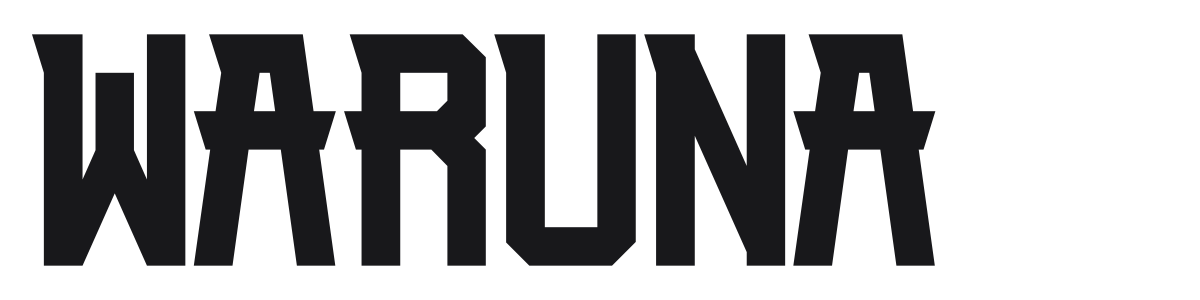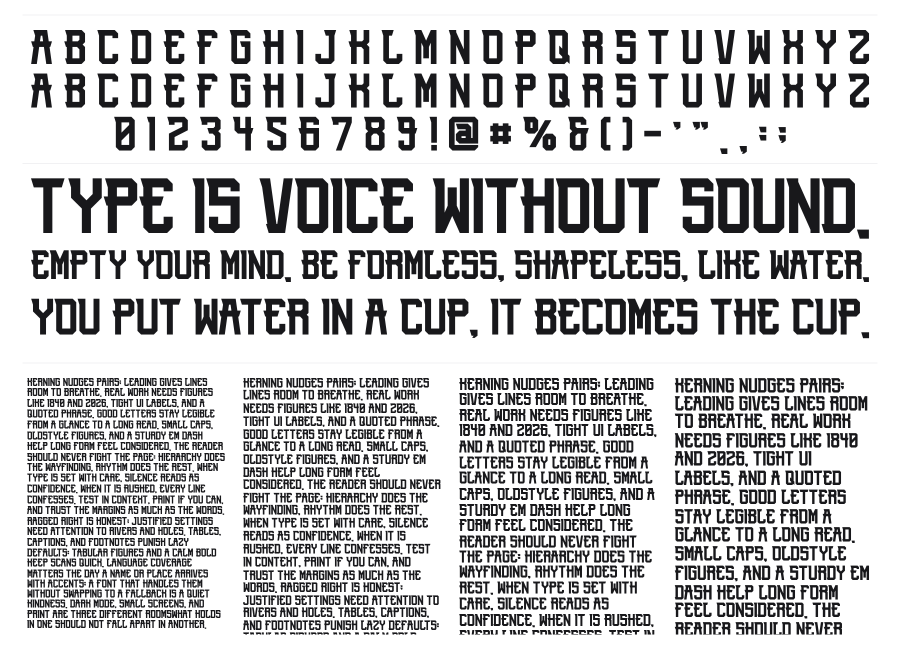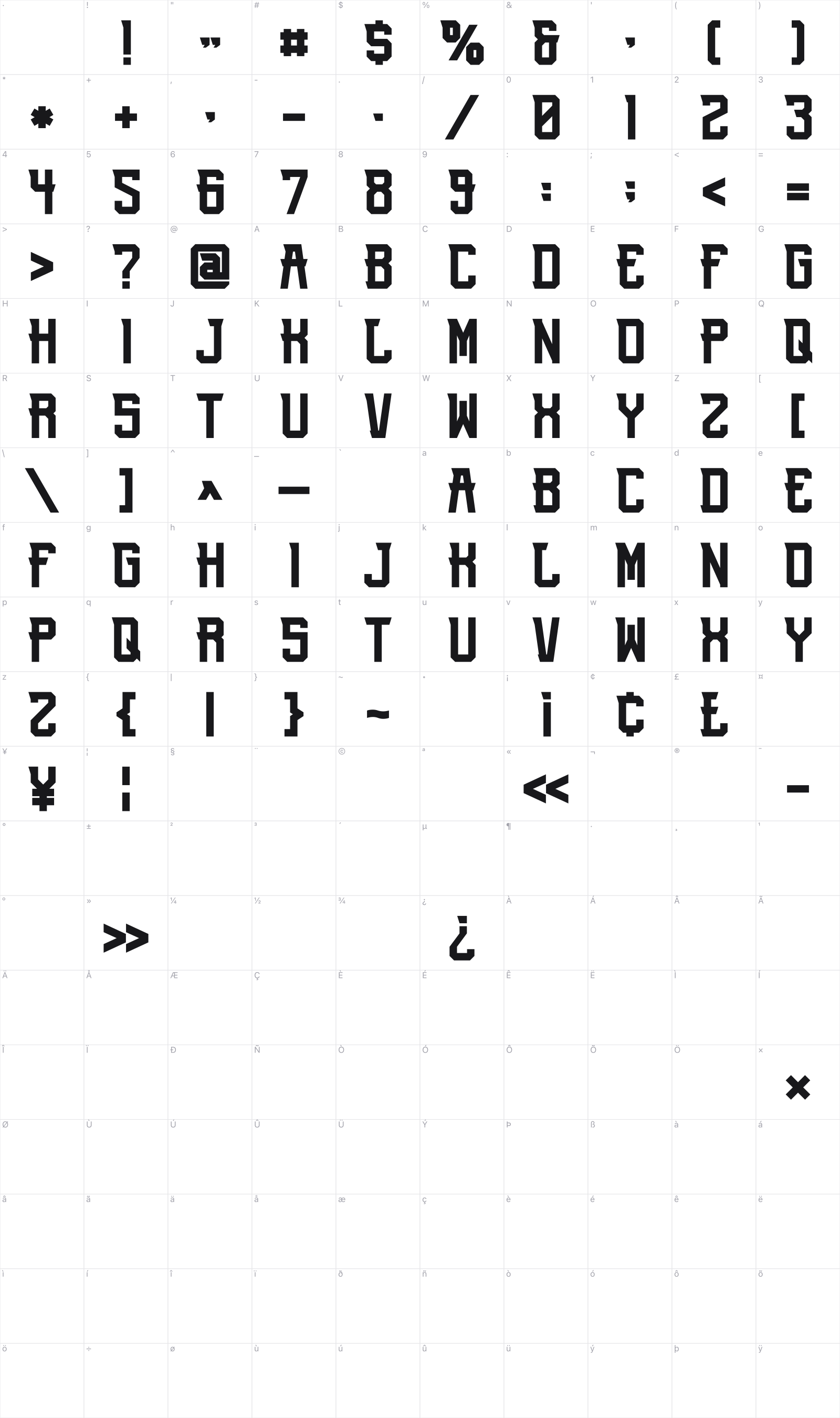
Waruna
Waruna is a heavy condensed display face with angular, faceted characters built from near-monoweight strokes and sharp diagonal cuts at terminals and corners. The blocky uppercase forms carry a vintage military or athletic energy that works at large sizes. It brings immediate visual weight to posters, team branding, and high-impact headlines.